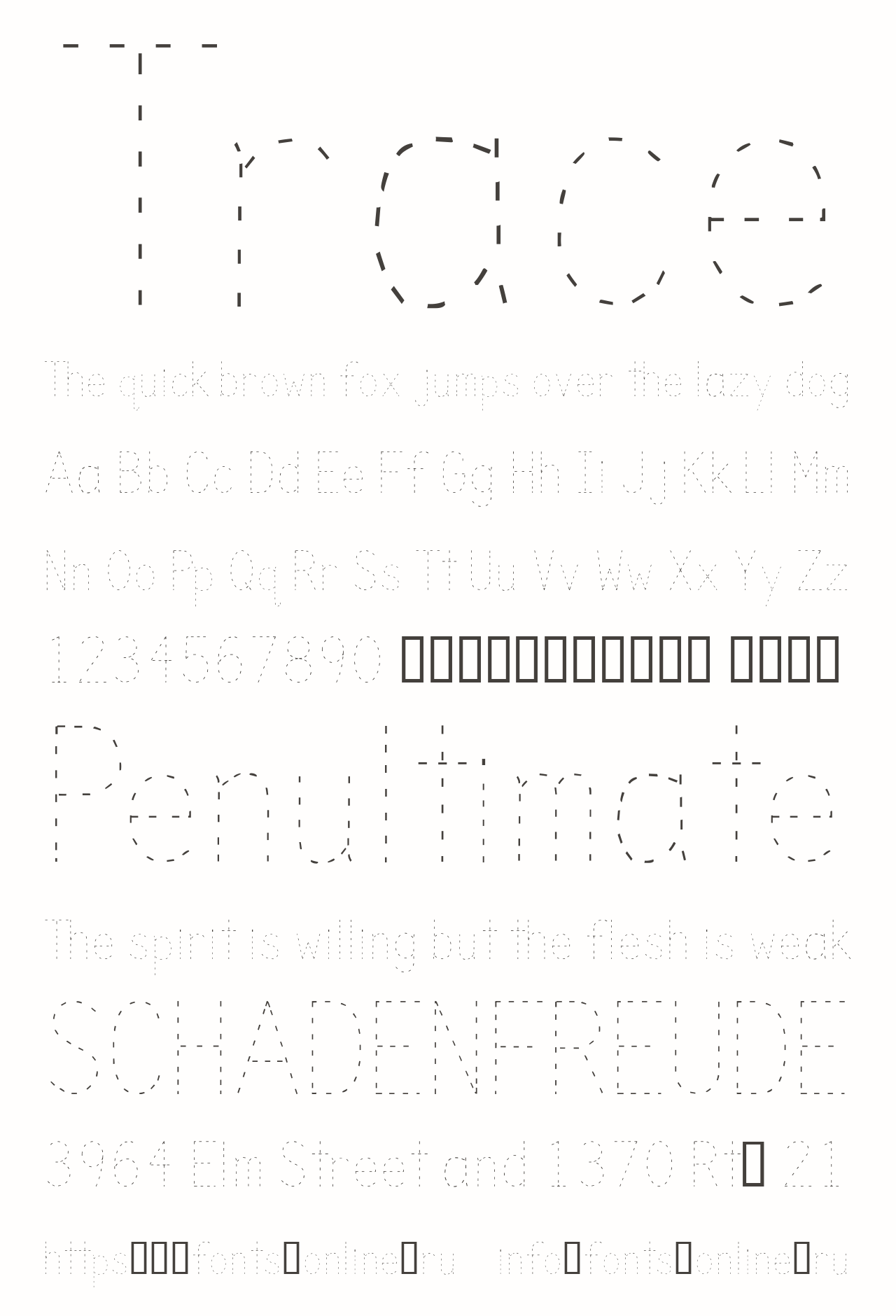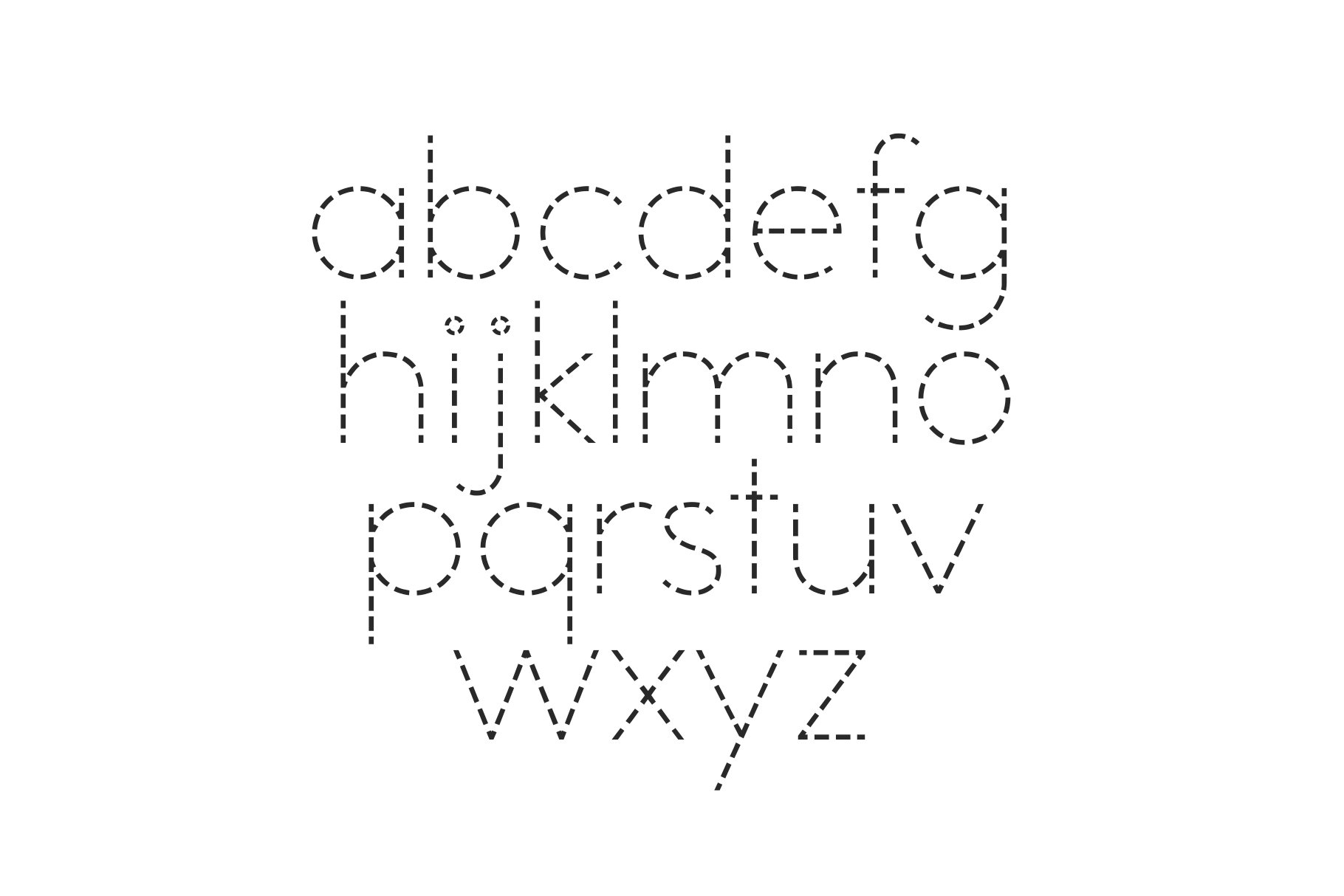
Finding the perfect font can elevate your design projects significantly. Whether you’re working on a personal project or a professional one, the right typeface can make all the difference in conveying your message effectively.
Tracing fonts are popular for their versatility and artistic flair. They can be used in everything from invitations to branding materials. With a simple search, you can discover a variety of options that suit your needs perfectly.
Incorporating tracing fonts into your designs can add a personal touch that resonates with your audience. Whether you’re creating digital art or printed materials, these fonts can help you achieve a unique look that stands out.
Exploring tracing font download free opens up a world of creative possibilities. With careful selection and proper usage, you can enhance your projects and make them truly memorable.